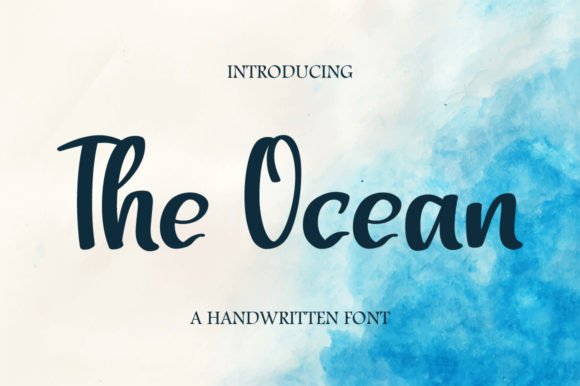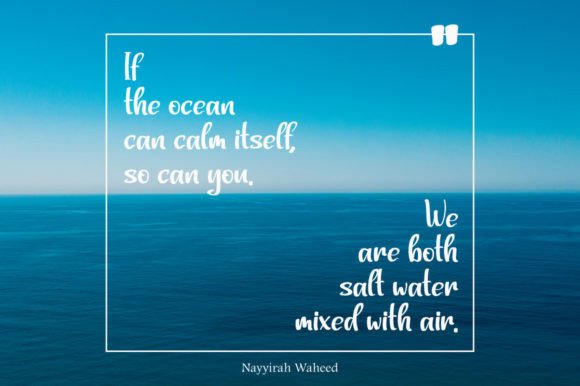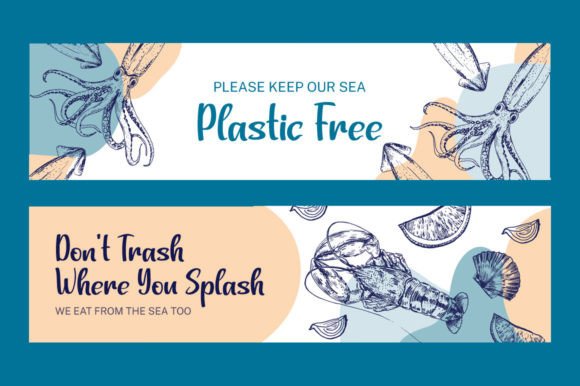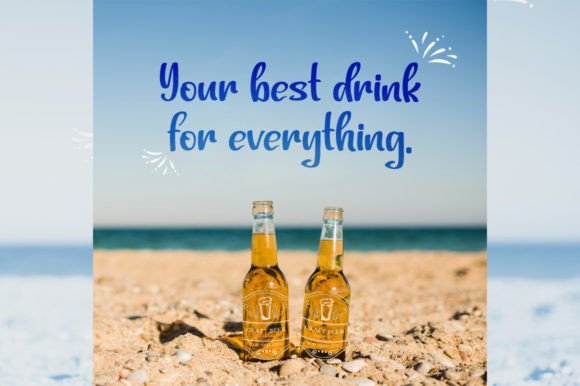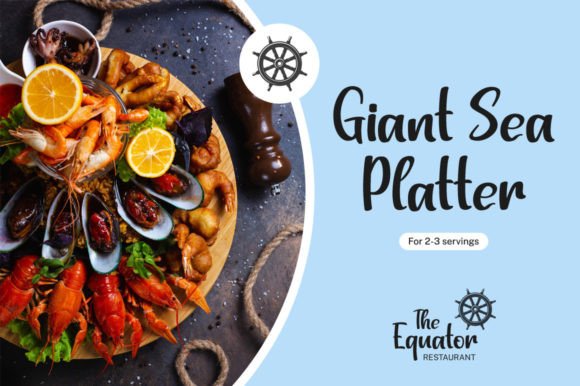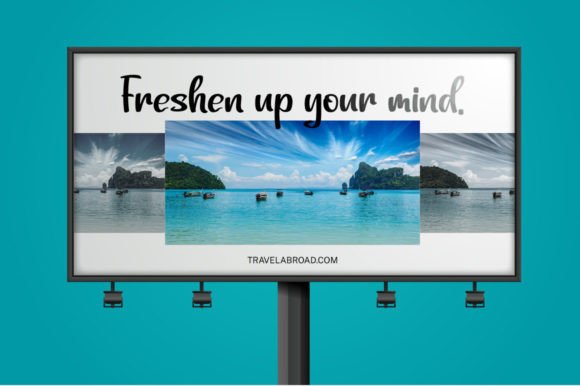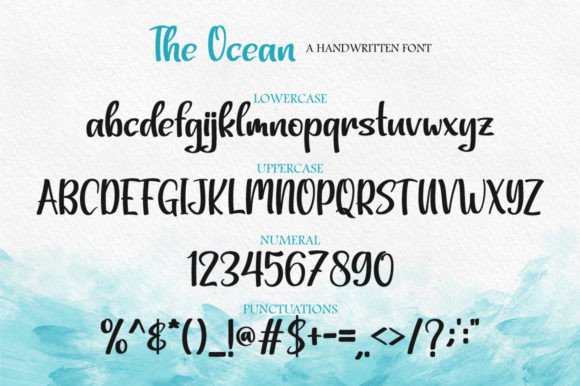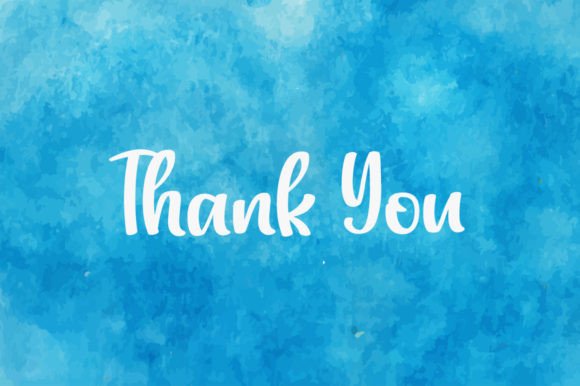
The Ocean Font
About The Ocean Font
**Discover Creativity with “The Ocean” Handwritten Font**
“**The Ocean**” is a delightful handwritten font that opens up numerous creative possibilities for your design projects. Let’s explore how you can utilize the unique features of “The Ocean” to make your designs stand out:
1. **Playful Handwriting:** “The Ocean” captures the whimsical essence of handwriting. Its lively and casual strokes bring a playful and approachable feel to your designs, making them more engaging.
2. **Versatile Usage:** This font is suitable for a wide range of applications, from invitations and thank you cards to quotes, greeting cards, logos, and business cards. Its adaptability allows you to infuse personality into various design projects.
3. **Invitations:** Create captivating and personalized invitations for weddings, parties, or special events using “The Ocean.” Its hand-drawn appearance adds warmth and authenticity to your invitation designs.
4. **Thank You Cards:** Express gratitude with style by incorporating “The Ocean” into your thank you cards. The font’s unique handwriting will make your appreciation feel heartfelt and genuine.
5. **Quotes and Typography Art:** Use “The Ocean” to design inspirational quotes, typography art, or wall decals. Its playful and customized touch enhances the impact of any phrase or quote.
6. **Greeting Cards:** Design eye-catching greeting cards for birthdays, holidays, or any occasion. “The Ocean” adds a personal and charming touch to your card designs, making them more memorable.
7. **Logos and Branding:** Craft distinctive logos and branding materials with “The Ocean.” Its handwritten style can help convey a sense of creativity, individuality, and approachability for your brand.
8. **Business Cards:** Make a lasting impression with business cards that feature “The Ocean.” The font’s unique look sets your cards apart and adds a touch of personality to your professional image.
9. **Social Media Graphics:** Elevate your social media posts and stories with “The Ocean.” Its playful and smart-looking style can help communicate your brand’s personality to your online audience.
10. **Children’s Content:** “The Ocean” is well-suited for children’s books, educational materials, and playful branding. Its friendly and fun appearance appeals to kids and adds a touch of joy to the content.
11. **Seasonal Designs:** Whether it’s summer, beach-themed designs, or any other season, “The Ocean” complements various seasonal themes and adds a customized flair to your creations.
12. **DIY Projects:** Use “The Ocean” for DIY projects like handmade journals, scrapbooks, and craft items. Its unique handwriting adds character to your creative endeavors.
13. **Typography Pairing:** Combine “The Ocean” with other fonts to create unique typography combinations. Pair it with a clean sans-serif font for a balanced and contemporary look.
14. **Product Packaging:** Give product labels and packaging a handmade and personalized touch with “The Ocean.” It suits artisanal, handmade, and crafty product branding.
15. **Personal Branding:** If you’re focused on personal branding, “The Ocean” can help you convey a sense of individuality and creativity. Use it in your personal logo or website design.
“The Ocean” is a handwritten font that encourages creativity and adds a personalized touch to your designs. Its playful charm makes it a versatile choice for a wide range of design applications. Embrace the whimsical appeal of “The Ocean” to enhance the warmth and authenticity of your projects.